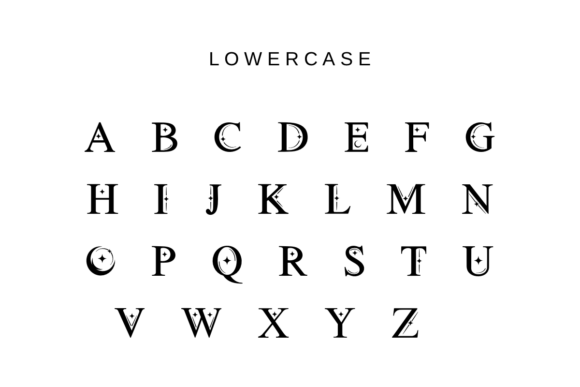
The Moon Font
The Moon is a luxurious and enchanting decorative font inspired by celestial beauty and cosmic elegance.
Featuring moon and star-themed elements integrated directly into the letterforms, this serif typeface shines with sophistication and mystery. Ideal for branding, logos, packaging, book covers, and editorial headlines, The Moon combines classic structure with dreamy, magical flair. Its refined style makes it perfect for luxury fashion, astrology-themed projects, spiritual businesses, or anything that needs a touch of stardust and style.